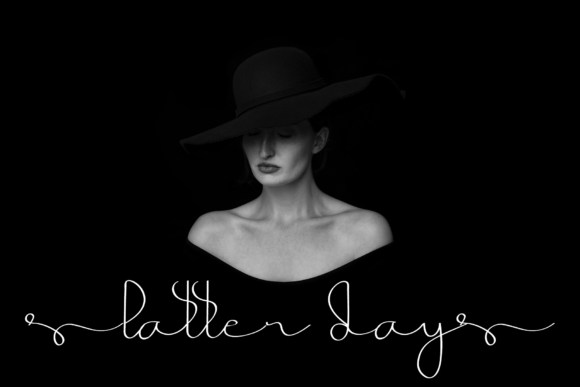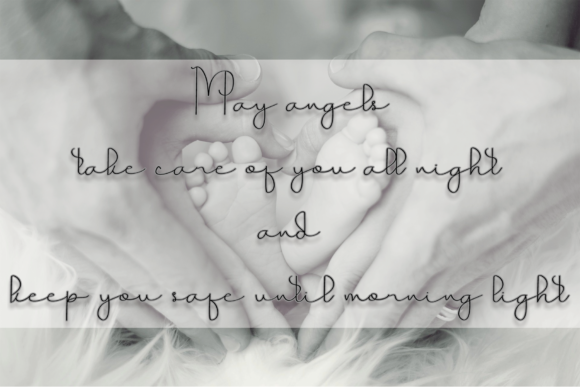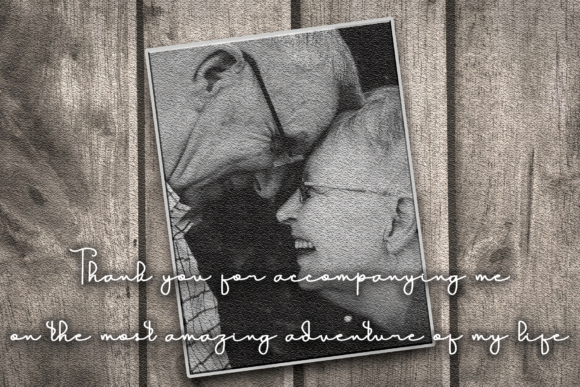
Introduction to Hallo Beautiful Font
Hallo Beautiful is a thin lettered, fashionable script font.
This font is neatly crafted and highly detailed Whatever the topic, this font will be a wonderful asset to your font library, as it has the potential to enhance any creation.